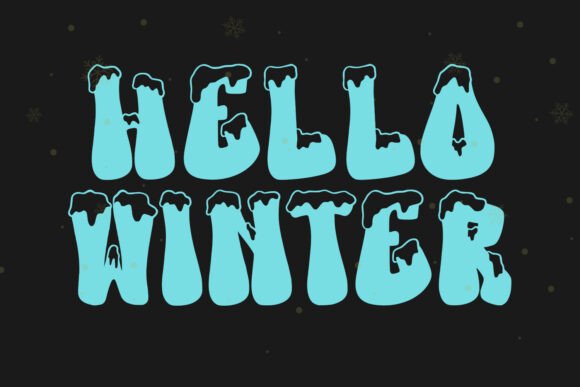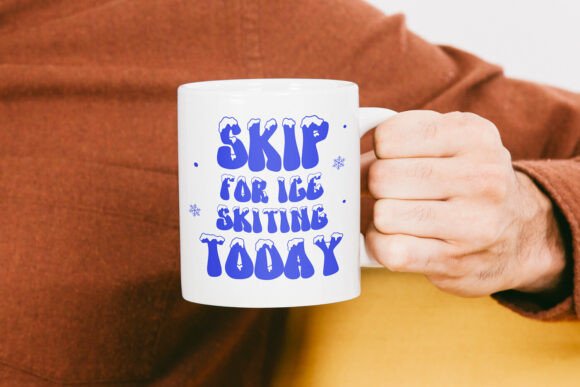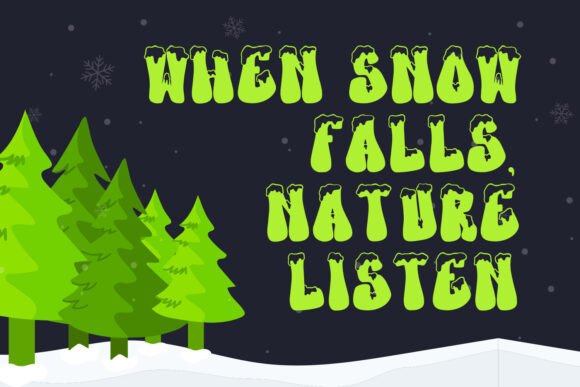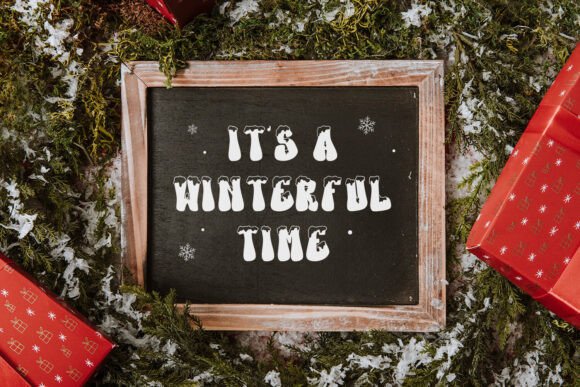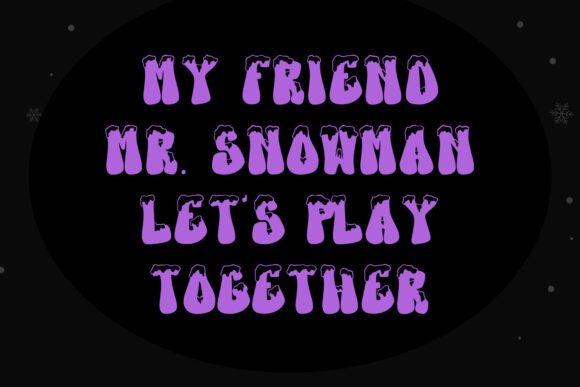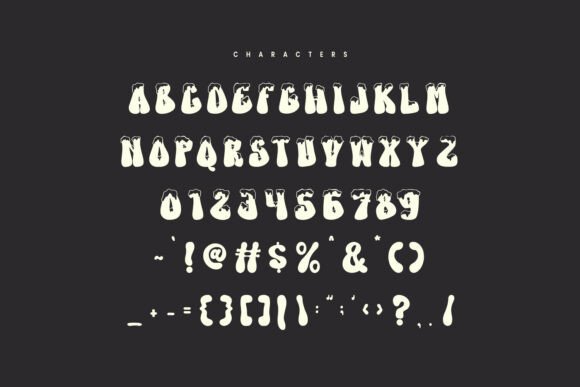
Introduction to Komulap Font
Komulap is a festive decorative font.
It will add an incredibly joyful touch to your designs Add this beautiful display font to each of your creative ideas and notice how it makes them stand out.